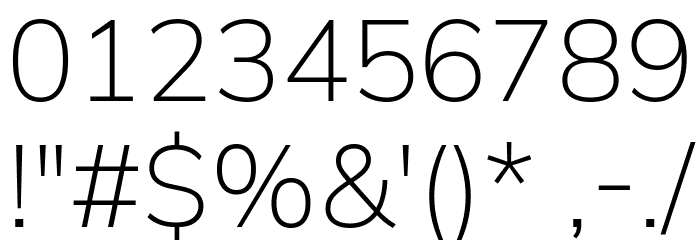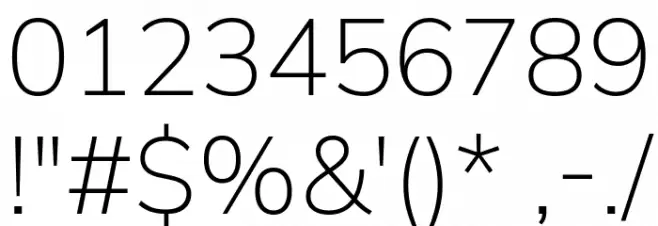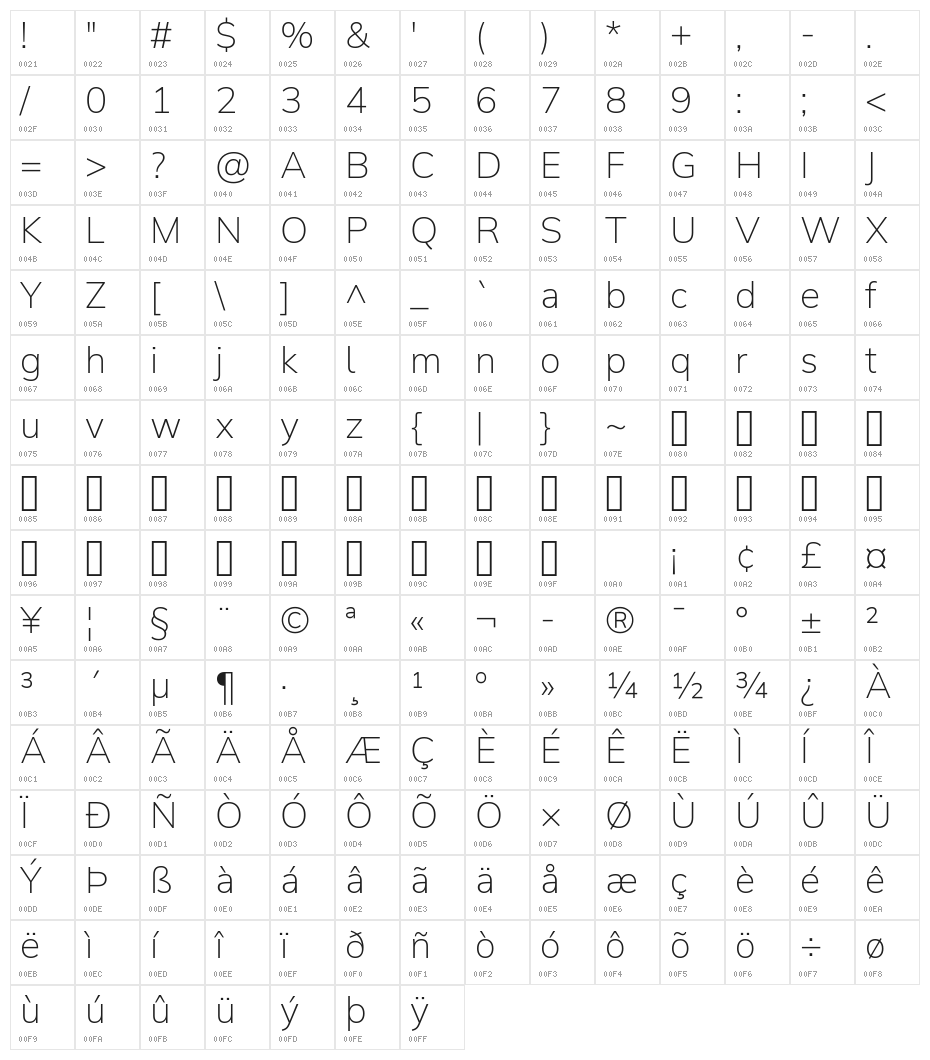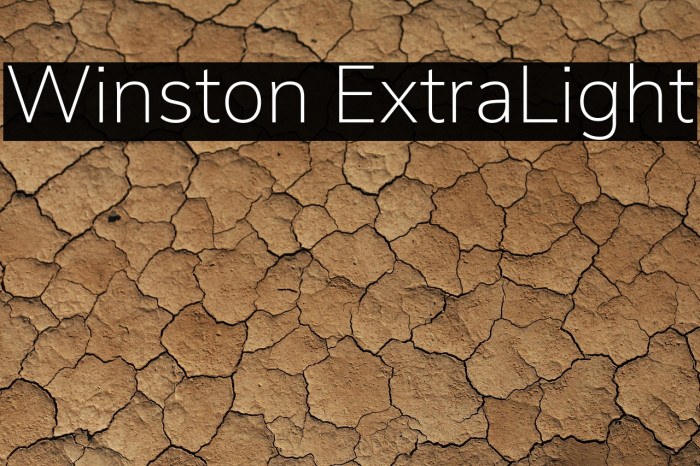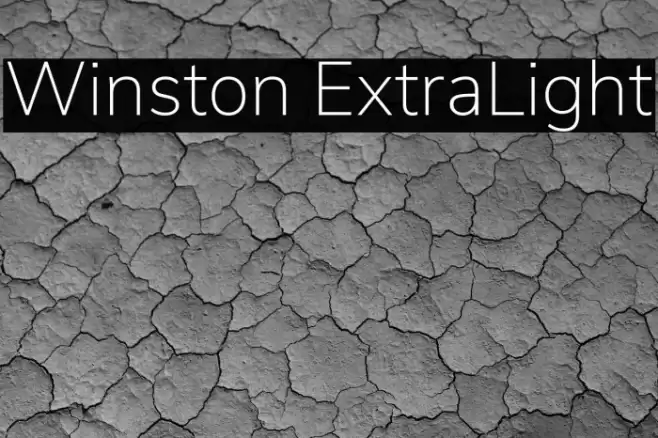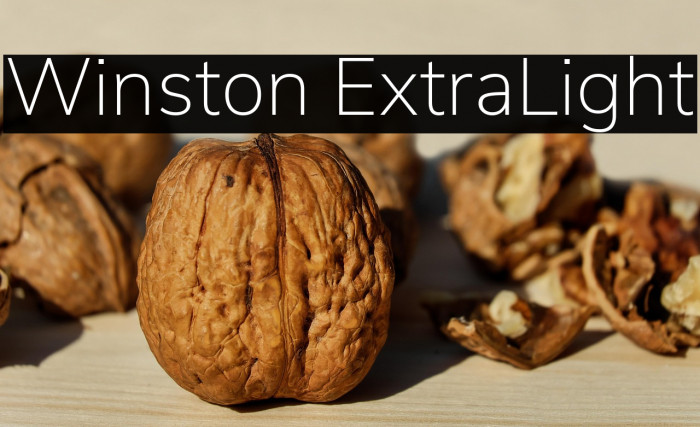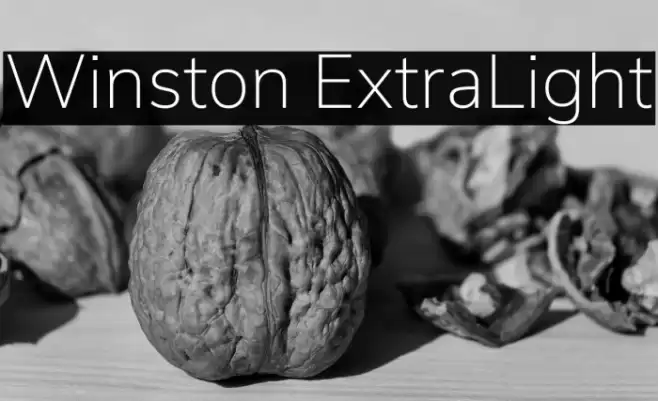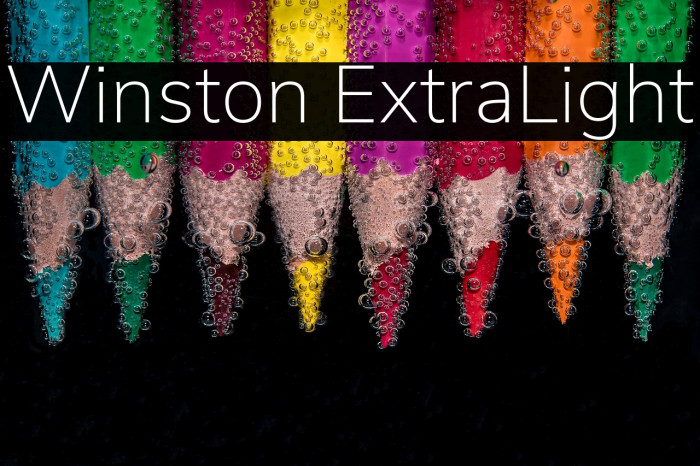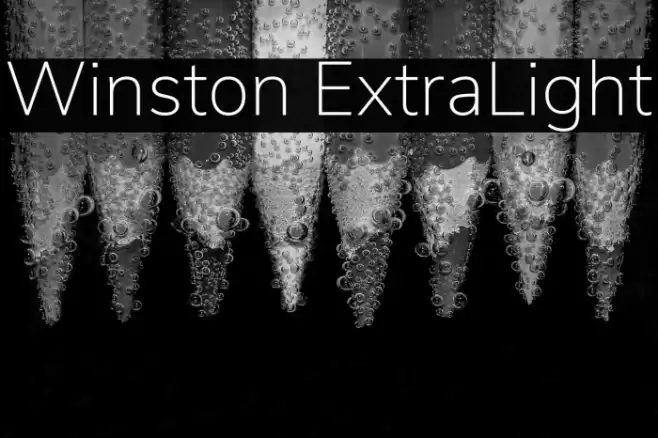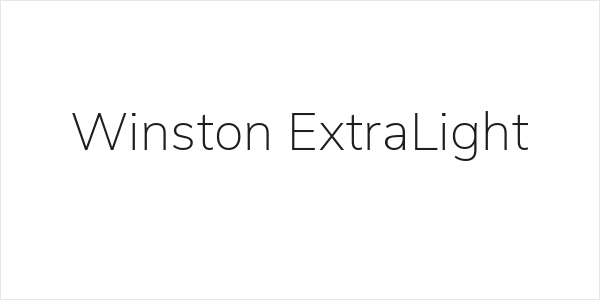
Winston ExtraLight Font
Winston ExtraLight Description
This font exhibits a clean and modern aesthetic with its extra light weight, making it ideal for minimalist design projects. The characters are well-proportioned with a consistent stroke width, contributing to its sleek and contemporary appearance. The uppercase and lowercase letters are crafted with precision, offering a harmonious balance that enhances readability. The numerals and special characters maintain the same level of clarity and elegance, ensuring versatility across various applications. Its simplicity and elegance make it suitable for projects that require a subtle yet sophisticated touch.
| Proposed Projects | Ideal for branding, editorial design, web design, and corporate materials. |